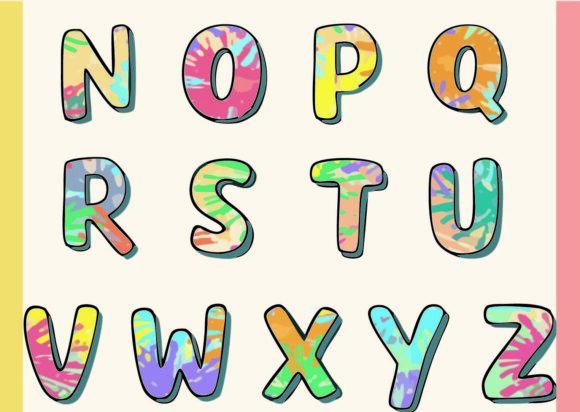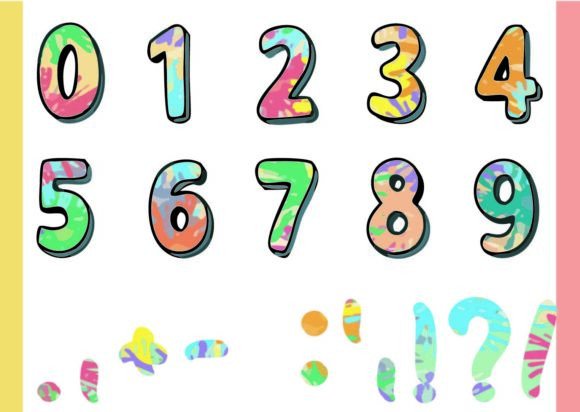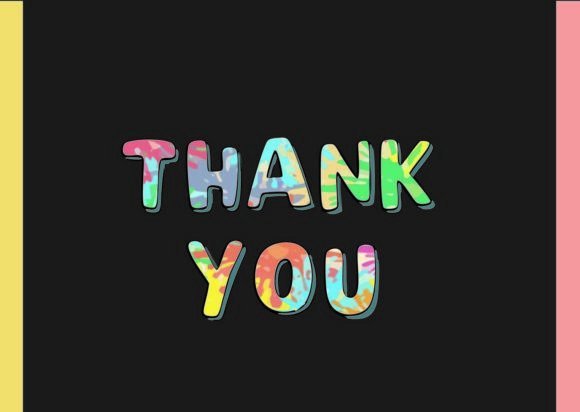
Introduction to Rylee Font Font
Fonts play a crucial role in design, and the Rylee Font font is a typeface that brings both character and versatility to any project. Whether you’re working on a branding project, a website, or a print design, the Rylee Font font offers a unique style that can elevate your work.
Rylee is a color font or chromatic font.
Every single glyph has a different set of colors A colorful heaven if you will.
Key Features of Rylee Font Font
Why Choose Rylee Font Font?
The Rylee Font font is more than just a typeface – it’s a design tool that helps you communicate your message with style and clarity. Its unique character set and versatile design make it suitable for a wide range of applications, from elegant invitations to bold headlines.
With its carefully crafted letterforms and balanced proportions, the Rylee Font font ensures readability and visual appeal across all mediums.
What makes Rylee Font font special?
The Rylee Font font stands out with its unique design, exceptional readability, and versatility across various design applications.